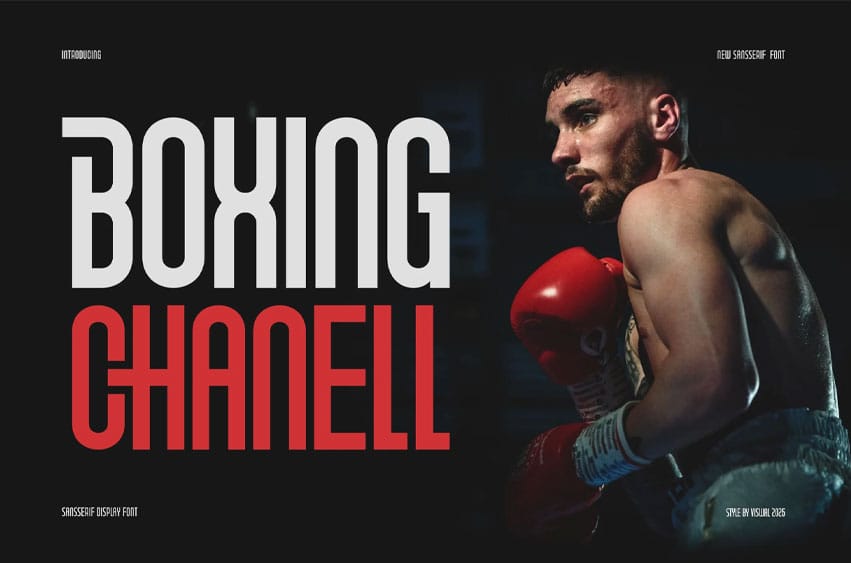
Boxing Chanell Font Is A Modern Sport Font. Can Make It Easier To Convey The Message In Your Design. Font Is Suitable For Logo, Labels, Badge, Branding, Magazine, Poster, Title, Gigs, Covers, etc. Our fonts include uppercase and lowercase, numerals & Punctuation, and OpenType features.